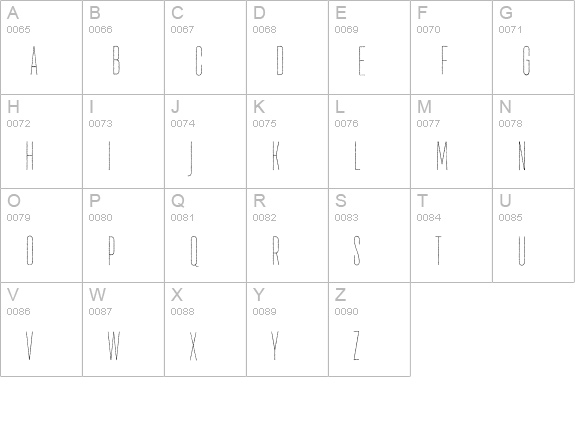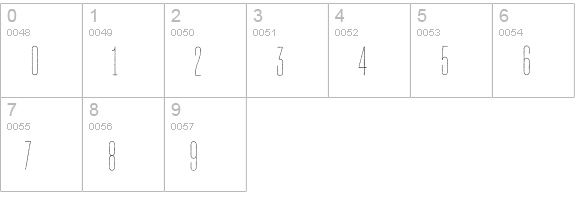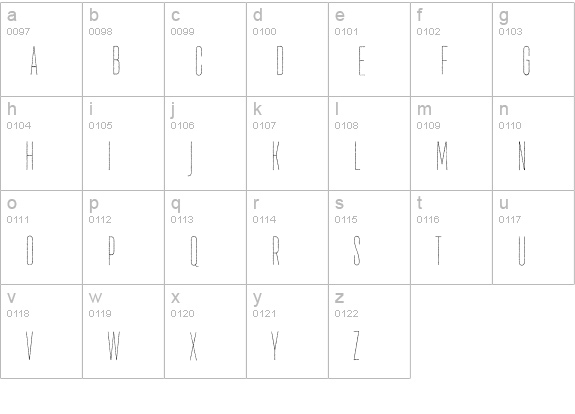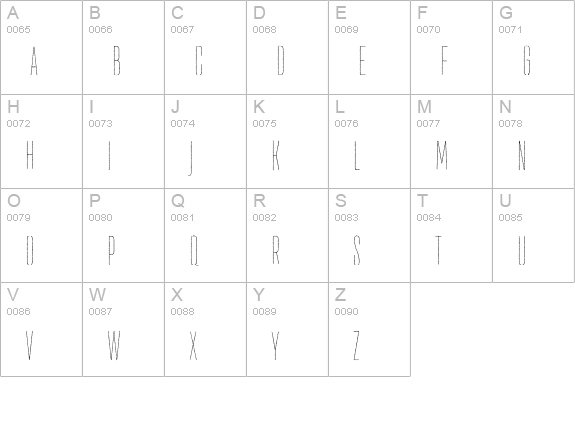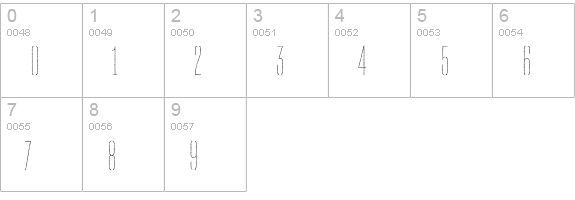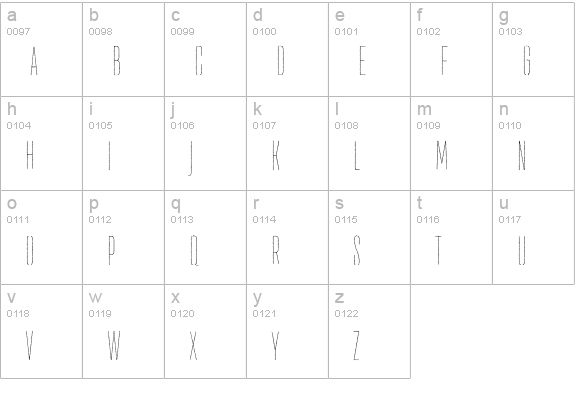
TT Bluescreens DEMO Thin Rough is a delicate, low-contrast variant in the TT typeface family \xE2\x80\x94 well suited to fashion editorial, minimal branding, and high-contrast display.
TT Bluescreens DEMO Thin Rough font is a modern and edgy typeface that exudes a sense of energy and creativity. With its thin and rough design, this font is perfect for adding a unique touch to your projects, whether it's for branding, packaging, posters, or social media graphics. The free version of TT Bluescreens DEMO Thin Rough font is now available to download at FontsMarket.com. This means you can enjoy using this stylish font without any cost, making it a great option for designers and creatives looking to add a bold and dynamic element to their work. Don't miss out on the opportunity to enhance your designs with the TT Bluescreens DEMO Thin Rough font for free. Download it now and let your creativity shine!